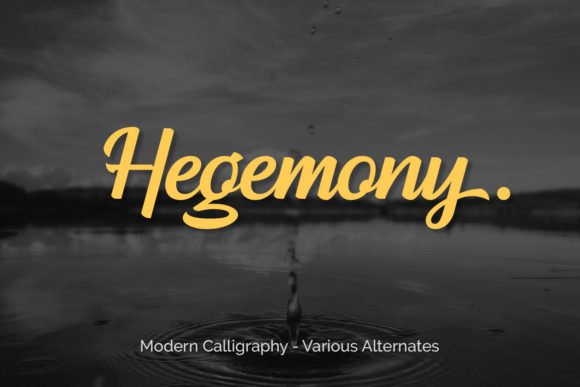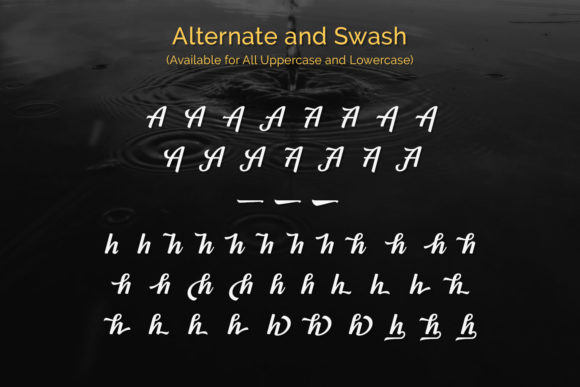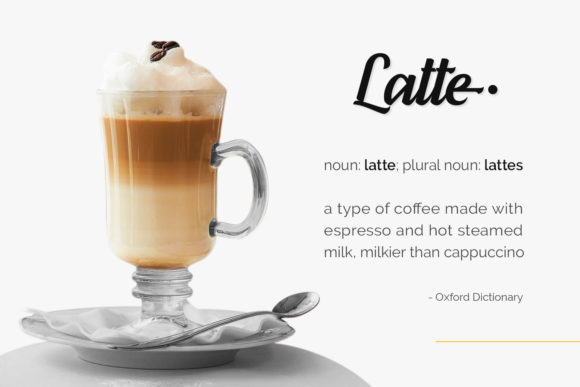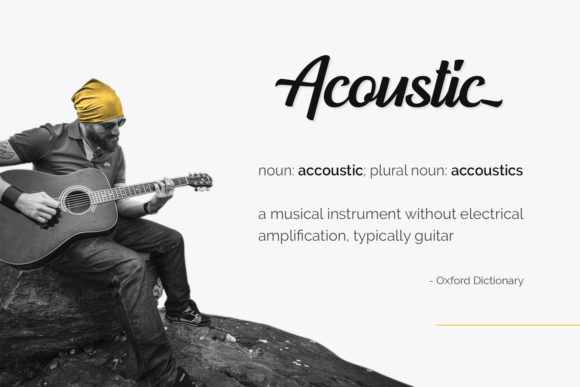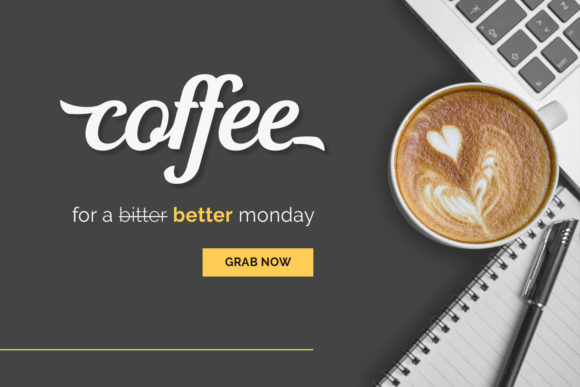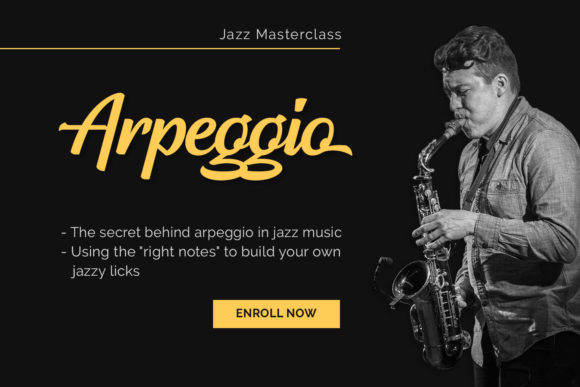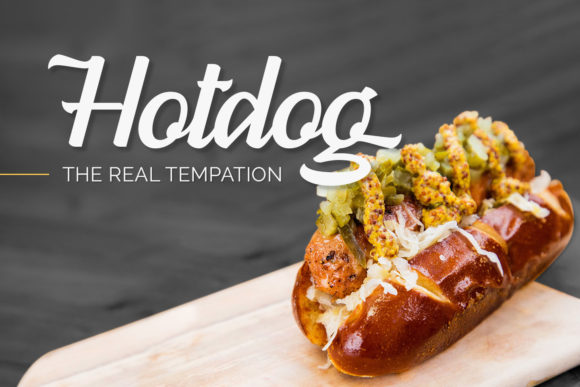
When a Font Takes Center Stage
Have you ever been in the middle of a design project, staring at a blank screen, and suddenly, an idea hits you like a ton of bricks? The colors, the layout, the typography – everything falls into place, and you know exactly what you want to create. For many designers, this moment is the spark that ignites a new project, and it’s exactly what happens when you meet the Hegemony Font.
This energetic, modern calligraphy typeface is designed to make your designs stand out. With its unique blend of heavy and clean strokes, the Hegemony Font adds a touch of sophistication to any project. Whether you’re working on a logo, a poster, or a website, this font is sure to elevate your design to the next level.
Hegemony Font Key Features
- Unique Characteristics: Hegemony Font features a unique blend of modern and traditional typography, with a focus on clean lines, geometric shapes, and subtle texture, making it perfect for high-end branding and design projects.
- Kerning and Ligatures: Hegemony Font includes advanced kerning and ligature pairs, ensuring that text sets are visually appealing and easy to read, even at small font sizes.
Hegemony Font Review
As a designer, I was excited to dive into the Hegemony Font and see what it had to offer. Here’s my honest review.
- ✨ Unique Character: The Hegemony Font has a distinct, modern aesthetic that sets it apart from more traditional fonts. Its unique character makes it perfect for projects that require a touch of edginess.
- ✨ High Legibility: Despite its unconventional design, the Hegemony Font is surprisingly easy to read, making it suitable for a wide range of applications.
- ✨ Customization Options: The font comes with a range of customization options, allowing users to fine-tune the look and feel to suit their specific needs.
- ⚠️ Limited Language Support: Unfortunately, the Hegemony Font lacks support for non-Latin scripts, which may limit its use in certain contexts.
- ⚠️ Not Suitable for Body Text: Due to its unique design, the Hegemony Font may not be the best choice for large blocks of body text, where readability is paramount.
Overall, the Hegemony Font is a great choice for designers looking to add a touch of modernity to their projects. While it has its limitations, its unique character and high legibility make it a great addition to any font collection.
For the most out of Hegemony Font, use it for headings and titles to create a strong visual impact.
1. Branding and logo design.
2. Advertising and marketing materials.
3. Editorial and publishing content.
Alternatives to Hegemony Font
Montserrat is a sans-serif font designed by Julieta Ulanovsky. It’s a modern and clean font, perfect for digital interfaces and websites. Montserrat is a great alternative to Hegemony Font when you need a more contemporary feel.
Comparison to Hegemony Font: Montserrat is more geometric and has a more minimalist aesthetic, while Hegemony Font has a more vintage feel.
Playfair Display is a luxurious and elegant serif font designed by Claus Eggers Sørensen. It’s ideal for headings and titles, adding a touch of sophistication to any design. Playfair Display is a good alternative to Hegemony Font when you need a more refined and high-end look.